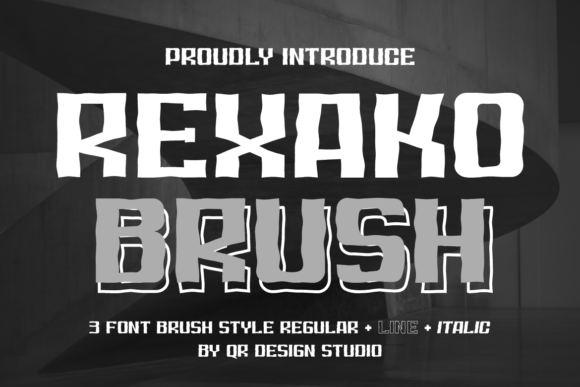
Prepare yourself to witness the spectacle of Rexako Brush Font, a decorative font family that will redefine your creative boundaries. This captivating display font is meticulously crafted by qrdesignstd, a visionary font artist who breathes life into typographic masterpieces. Rexako Brush is not just a mere font; it's an artistic odyssey waiting to be explored.
With its bold and authentic strokes, Rexako Brush Font exudes an aura of raw energy and undeniable charm. It's a font that commands attention, demanding to be noticed and admired. The subtly distressed edges add a touch of vintage charm, evoking nostalgia and a sense of timeless elegance.
Imagine the possibilities that await you with Rexako Brush Font at your fingertips. Create logos that leave an indelible mark, with each letter possessing a distinct personality that captivates the eye. Craft food brand designs that tantalize the taste buds, with every menu item looking as delectable as it tastes. Design social media graphics that pop off the screen, grabbing the attention of your audience and leaving them craving more.
The versatility of Rexako Brush Font is simply astounding. It transcends genres and styles, effortlessly adapting to a myriad of design projects. Whether you're working on sports-related designs, creating custom invitations, or simply adding a touch of flair to your personal projects, Rexako Brush Font will elevate your work to new heights.
With Rexako Brush Font in your arsenal, you possess the power to transform ordinary designs into extraordinary works of art. Unleash your creativity and embark on a journey of typographic exploration. Let Rexako Brush Font guide you as you create designs that captivate, inspire, and leave a lasting impression.